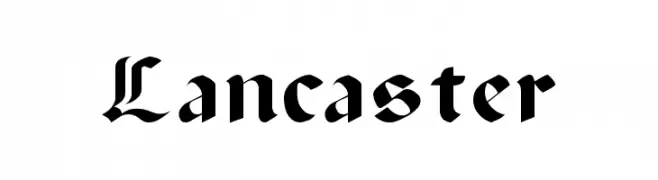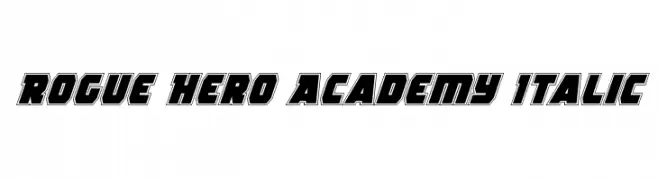
A bold, dynamic script font with elegant, flowing cursive letterforms.
A geometric and modern font with a strong, angular structure and uniform stroke width.
A bold, italicized handwritten font with dynamic and fluid strokes.
A bold, decorative font with a 3D shadow effect and striped pattern.
A bold, condensed font with a shadow effect for impactful designs.
A classic blackletter font with ornate and intricate letterforms.
A modern, elongated font with a unique, stilt-like design.
A bold, modern sans-serif font designed for clarity and readability in digital interfaces.
Bold, italicized font with a dynamic, three-dimensional style.